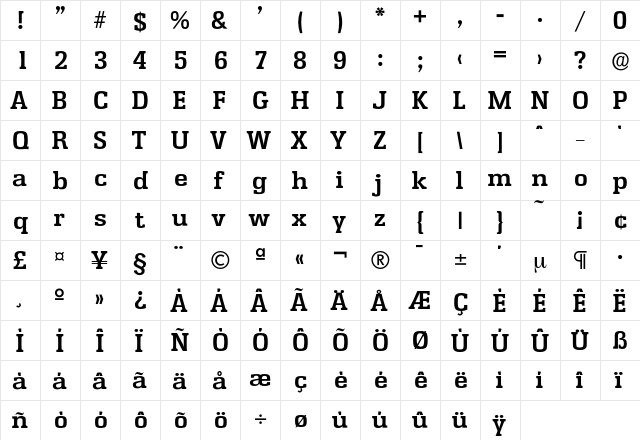
Enschede-DemiBold Regular
Design Context for Enschede-DemiBold Typeface
Enschede-DemiBold takes a measured approach to typography — its balanced proportions and neutral character make it a reliable workhorse for both digital and print work. The heavy weight commands attention and anchors typographic hierarchies.